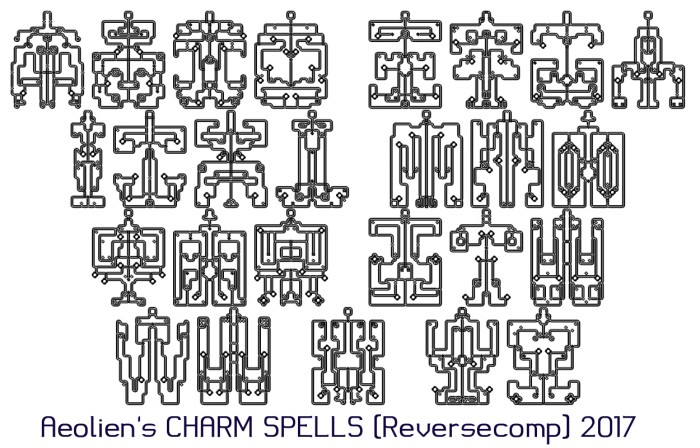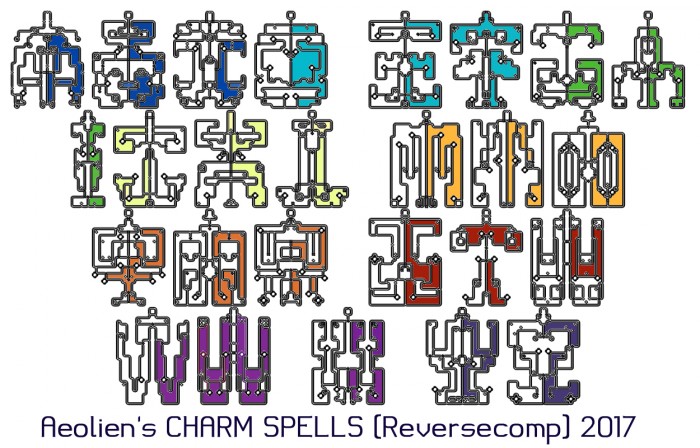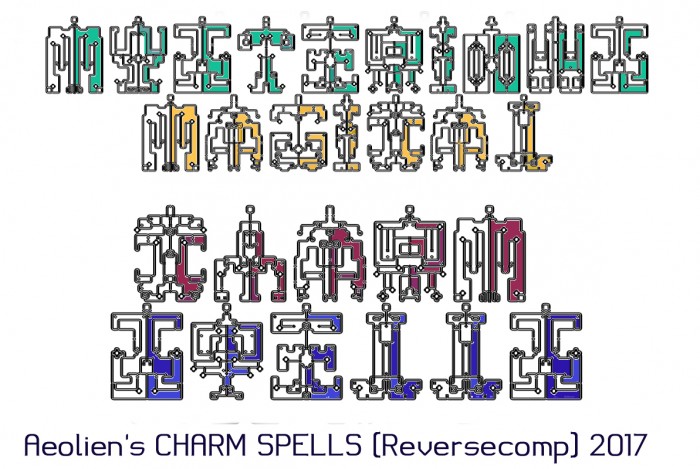
Quite a clever font and a unique design 10/10
Agreed about uniqueness, every letter seems to have a history of its own. Abstract vision of things. Liking this.
Are you going to manufacture individual letters, perhaps in siver wire, as charm pendants ?  I would be interested !
Brilliant and unique font. Bravo.
@time.peace @architaraz: thank you glad you like it :) @wicci: yes, in copper wire or silver if I find that  (I used to make easy and non-precious jewelry for people)
Fascinating mirrored letterforms, would love to see a photo if you decide to translate some of this into wire jewelry.
How very 'Neurone' of you, Aeolien. Was that on purpose?
Geneus:thanks :) This font was born after looking at Paisley patterned fabrics. "Jewellery" arrived when I added the axis. 'Neurone' got my graphics-brain working, I miss his complex,powerful, uncompromising work.
Digits?? I would love to see more...
Brynda, digits won't improve this majuscule style. I'm not adding glyphs to enter a 'count' race. But if I have a month without responsibilities I might add to this font.
Congratulations! FontStruct Staff have deemed your FontStruction worthy of special mention. “Charm Spells” is now a Top Pick.
If you downloaded the first version of this you'll want to replace it with this update,  S and B are improved for better color-fill.
Very pretty. Congratulations for the TP. 10/10
@ Meek: I want to tell you that I did realise the "meaning" of your sample ;)  I had forgotten him although his ideas fitted the psychedelic mind expansion searches of the 60s-70s ...
Very nice. It reminds me of bind runes, or electronic pathways. :)
very smart an imaginative love it